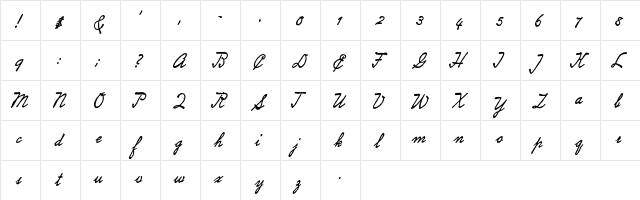
Archive Magno Script Regular
Design Context for Archive Magno Script Typeface
Archive Magno Script flows with the natural rhythm of handwritten lettering, making it ideal for designs that call for warmth and personal expression.
Font Pairing: Combine Archive Magno Script with a simple geometric sans for maximum contrast — the tension between flowing curves and clean structure is a classic typographic pairing.
Pro Tip: Use Archive Magno Script for short runs of text — names, titles, or taglines. Extended body copy in script faces tires the eye quickly.